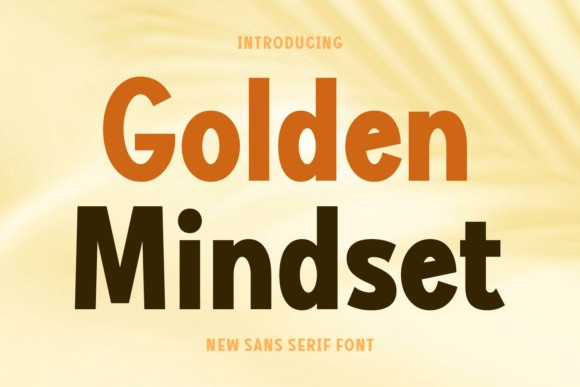
Golden Mindset Font
Golden Mindset Font a new sans serif font. The design creates a sunny, optimistic, and confident atmosphere, perfectly matching the font’s bold, clean, and modern character.